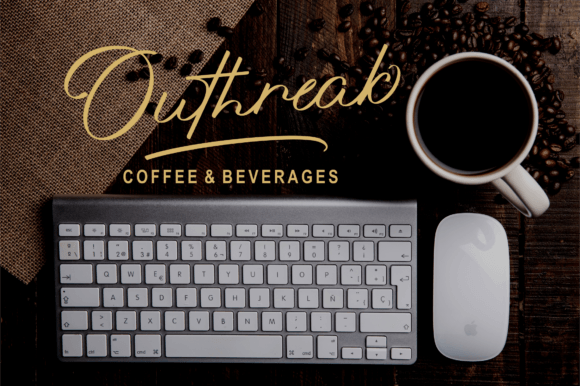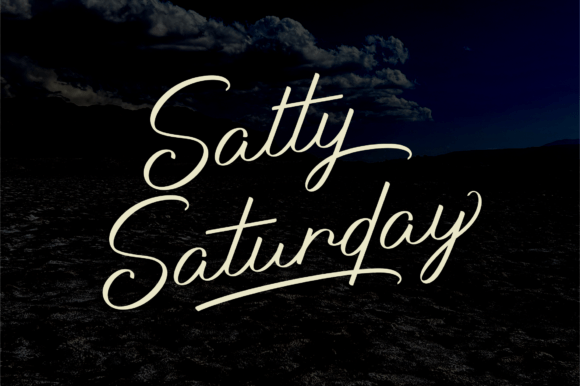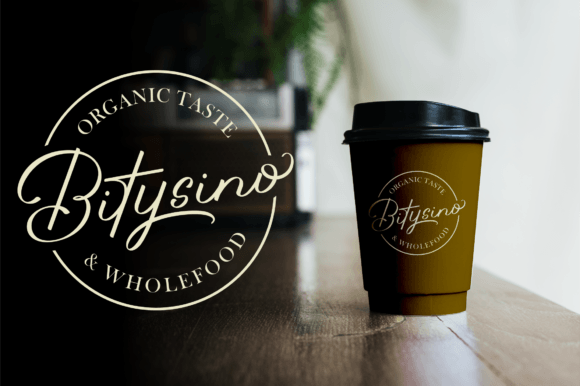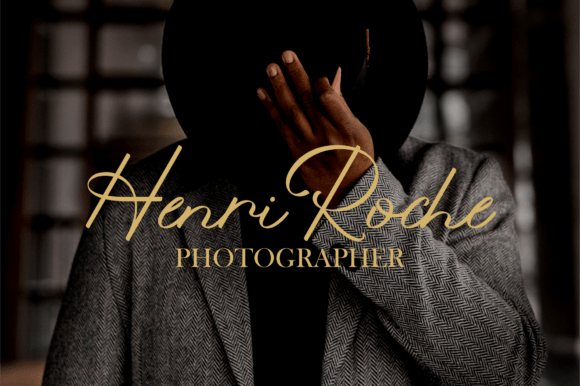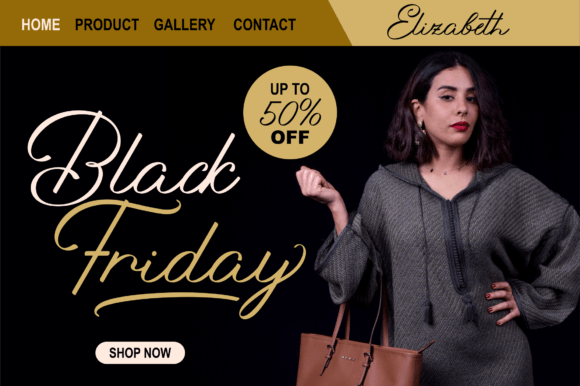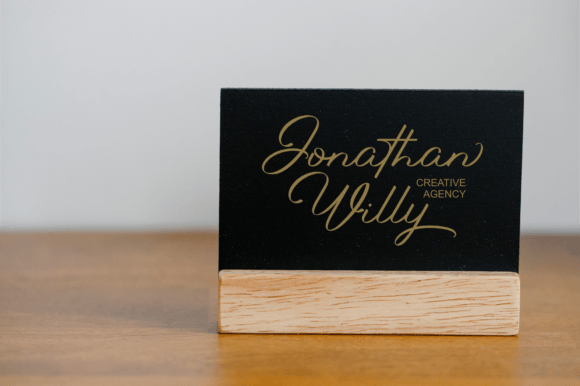
Introducing Crystania Font: Elevate Your Designs with Elegance and Sophistication
Are you looking for a font that exudes luxury, romance, and sweetness? Look no further than Crystania Font, a stunning calligraphy typeface that is sure to add a touch of elegance to any design project. With its unique and flowing characters that dance along the baseline, Crystania Font is the perfect choice for designers and crafters who want to create beautiful and sophisticated designs.
What Makes Crystania Font Special?
Crystania Font is a romantic and sweet calligraphy typeface that is designed to make your designs stand out. Its characters are carefully crafted to dance along the baseline, creating a sense of movement and fluidity that is sure to capture the attention of your audience. Whether you’re working on a branding project, a wedding invitation, or a packaging design, Crystania Font is the perfect choice to add a touch of luxury and sophistication.
PUA Encoding for Easy Access to Glyphs and Swashes
One of the best things about Crystania Font is that it is PUA (Private Use Area) encoded, which means that you can access all of the amazing glyphs and swashes with ease. This feature makes it easy to customize your designs and add unique touches that will set your work apart from others. With Crystania Font, you can easily access a wide range of glyphs and swashes, allowing you to create complex and beautiful designs that will impress your clients and audience.
Crystania Font is perfect for designers and crafters who want to create beautiful and sophisticated designs. Whether you’re working on a commercial project or a personal craft project, Crystania Font is a great choice. Its elegant and flowing characters make it perfect for a wide range of design applications, including:
- Branding and logo design
- Packaging design
- Signage and display design
- Personal craft projects, such as card making and scrapbooking
Tips for Using Crystania Font
Here are a few tips for using Crystania Font in your designs:
- Use Crystania Font as a headline font to add a touch of elegance and sophistication to your design.
- Pair Crystania Font with a simpler font to create a beautiful contrast and add visual interest to your design.
- Experiment with different glyphs and swashes to add unique touches to your design.
- Use Crystania Font to create beautiful and elegant text banners and headers.
In conclusion, Crystania Font is a beautiful and elegant calligraphy typeface that is perfect for designers and crafters who want to create sophisticated and luxurious designs. With its unique and flowing characters, PUA encoding, and wide range of glyphs and swashes, Crystania Font is a great choice for a wide range of design applications. Whether you’re working on a commercial project or a personal craft project, Crystania Font is sure to add a touch of elegance and sophistication to your design.